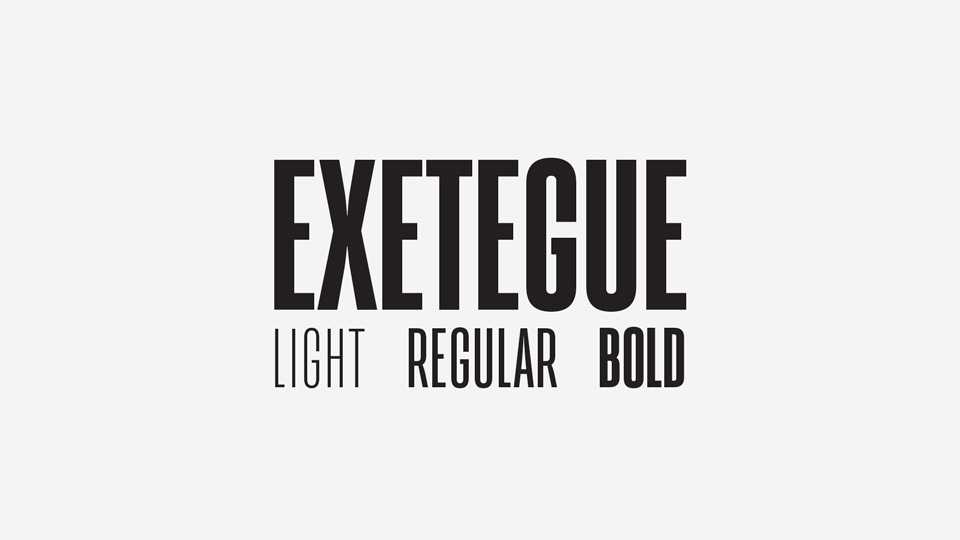
Download Exetegue typeface, a very narrow, all-caps font family, where the diacritcs are pushed inside the capitals’ case. It’s ideal for titles with tight leading.
Designer: Scannerlicker!